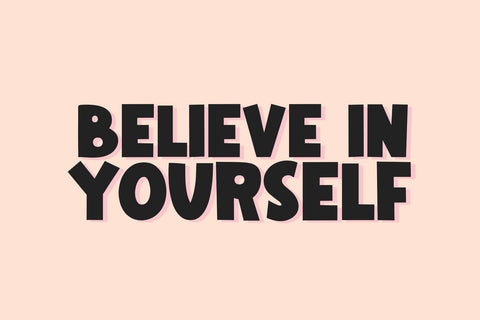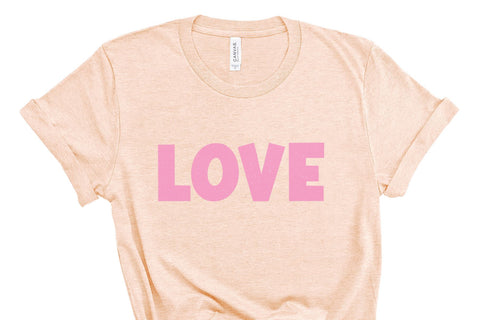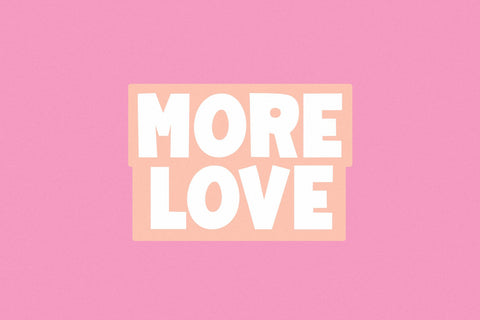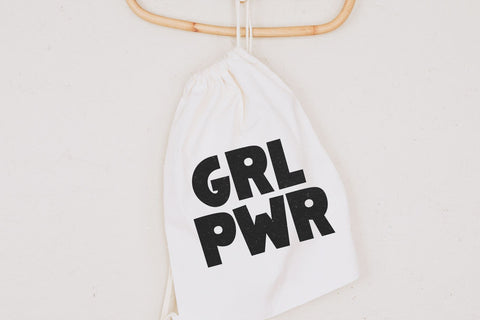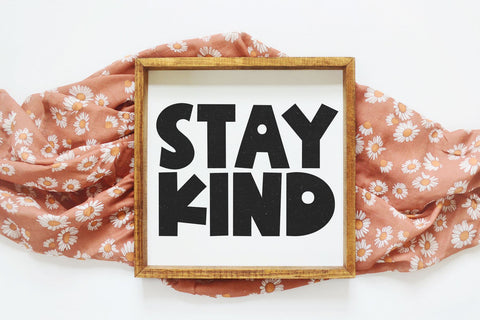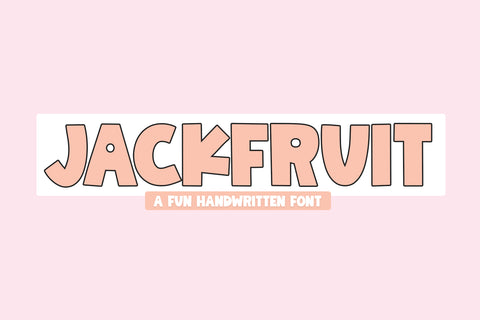
Jackfruit - Bold Handwritten Font
Jackfruit is a cute handwritten font with big, bold letters!
This font is perfect for your craft projects, shirts, stickers, procreate and more!